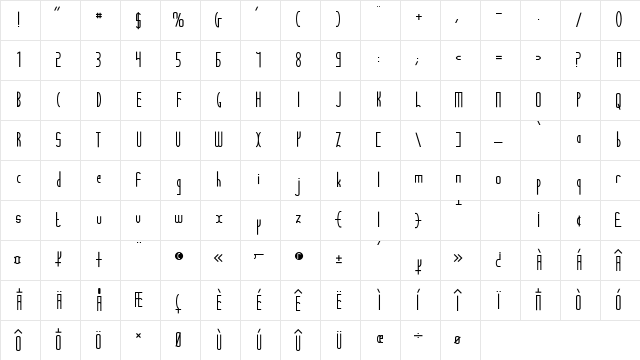
Stelefont Medium
Style: Medium
Design Context for Stelefont
Stelefont is a composed and adaptable typeface that performs quietly and consistently across a wide range of design contexts.